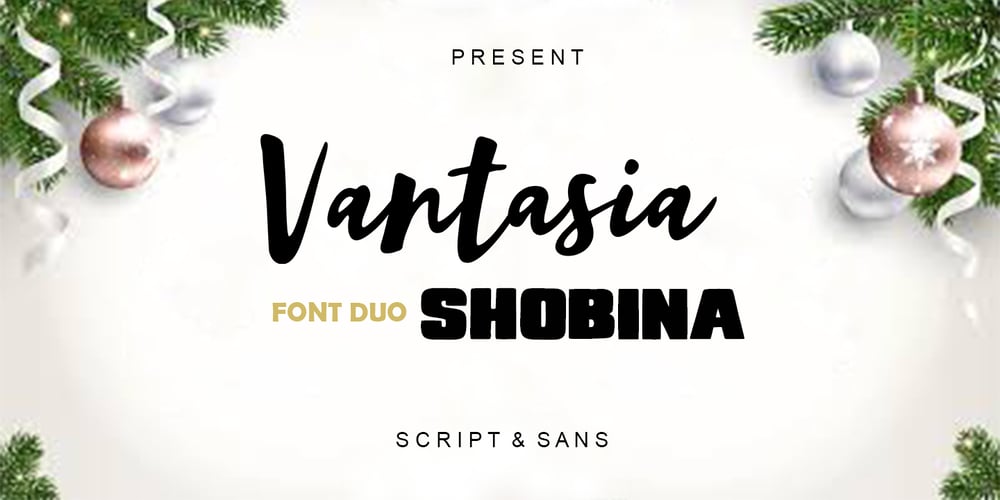
Vantasia Font Family was designed by Muammar and published by Scoothtype. Vantasia contains 4 styles and family package options. Vantasia include two font styles with full set of handwritten style draw for script and cute style letters for sans. Numerals, a large range of punctuation and ligatures giving realistic hand-lettered style.In order to use the beautiful ligatures for script also all uppercase for sans serif, you need a program that supports OpenType features such as Adobe Illustrator CS, Adobe Photoshop CC, Adobe Indesign and Corel Draw.Thanks and have a great day 🙂